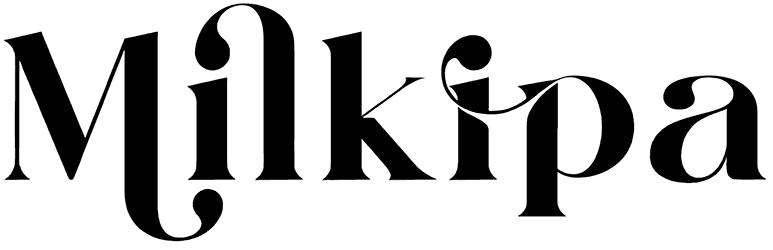
Milkipa Font
Using this elegant basic font to adorn your design will give you a chance to create an ageless and chic layout. The Milkipa font, with its classic and unique form, is going to throw a charming feeling into your design. Test this serif font for your new Instagram reel and see how amazing it will be.